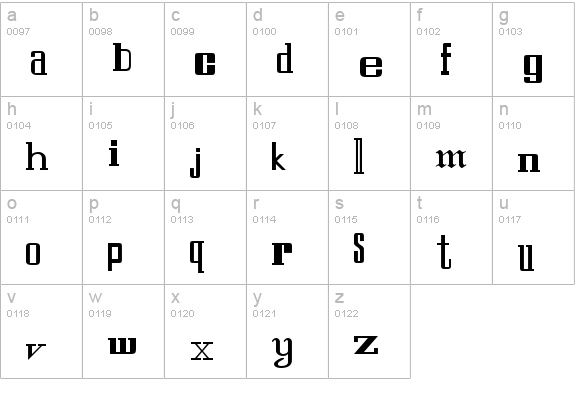
Fernando Regular Font Details
Fernando Regular is the standard, neutral variant in the Fernando typeface family \xE2\x80\x94 well suited to general body text, paragraphs, and standard typographic work.
Fernando Regular font is a versatile and stylish typeface that exudes elegance and sophistication. Its timeless design features clean lines and classic letterforms, making it perfect for a wide range of design projects. Whether you're creating a sleek logo, designing a chic invitation, or crafting a professional presentation, Fernando Regular font will add a touch of refinement to your work. The best part? Fernando Regular font is completely free to download at FontsMarket.com. With just a few clicks, you can access this premium font and elevate your designs with its polished aesthetic. Don't miss out on the opportunity to enhance your projects with the beauty of Fernando Regular font – download it today and see the difference it makes in your work.